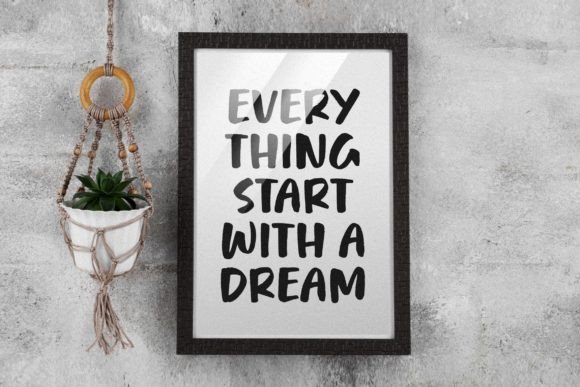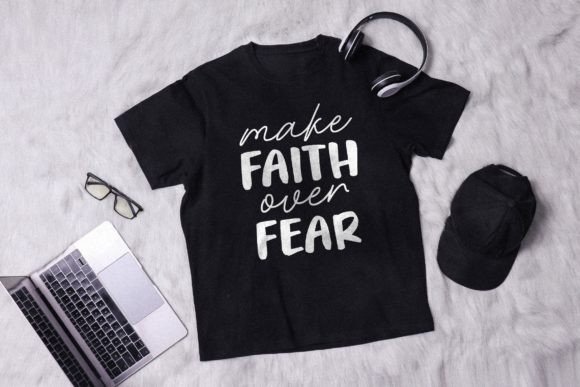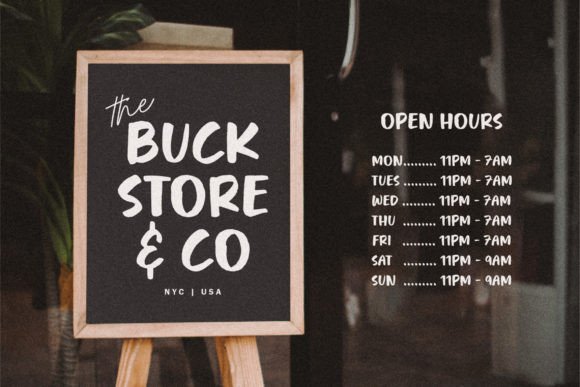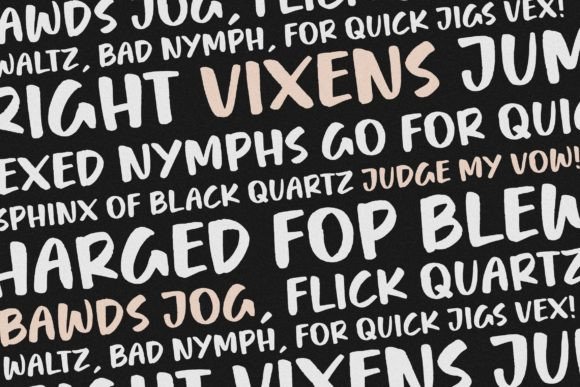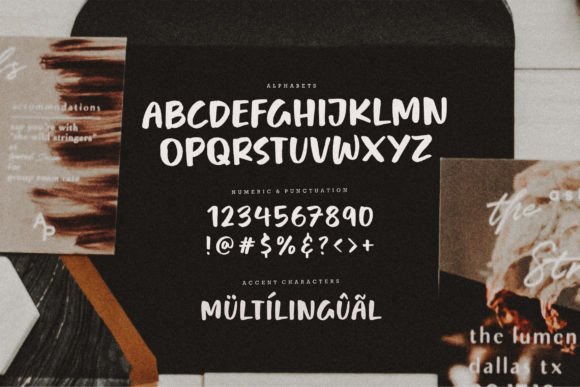
Introduction to Rockfire Font Font
Fonts play a crucial role in design, and the Rockfire Font font is a typeface that brings both character and versatility to any project. Whether you’re working on a branding project, a website, or a print design, the Rockfire Font font offers a unique style that can elevate your work.
Rockfire is a fun and unique handwritten font.
Bold, assertive, yet still maintaining a friendly touch, this font will be a wonderful asset to your font library .
The Rockfire Font font is more than just a typeface – it’s a design tool that helps you communicate your message with style and clarity. Its unique character set and versatile design make it suitable for a wide range of applications, from elegant invitations to bold headlines.
With its carefully crafted letterforms and balanced proportions, the Rockfire Font font ensures readability and visual appeal across all mediums.
The Rockfire Font font stands out with its unique design, exceptional readability, and versatility across various design applications.